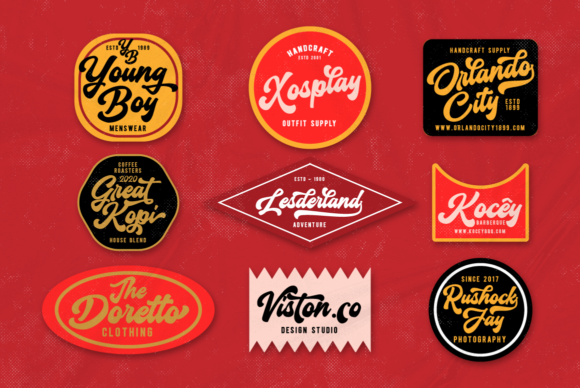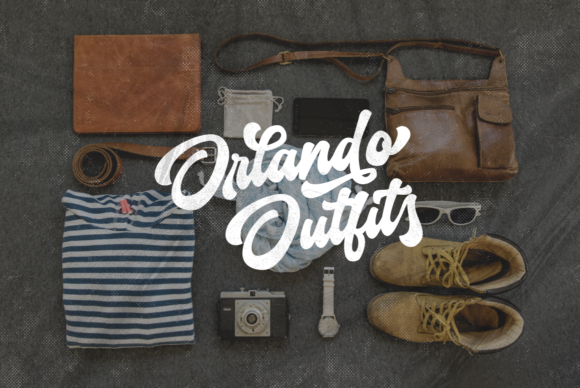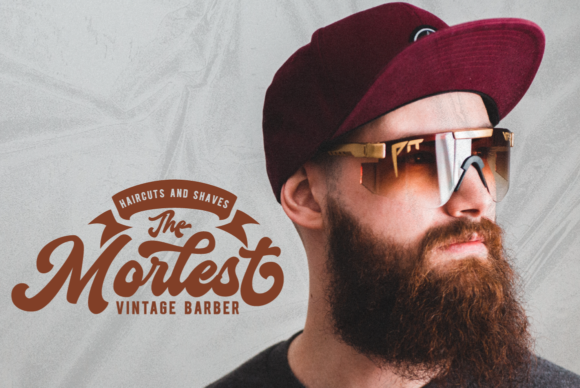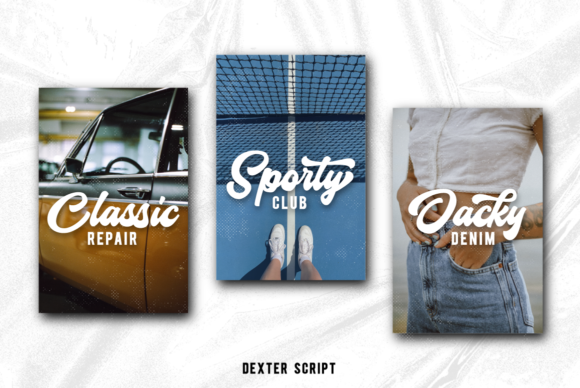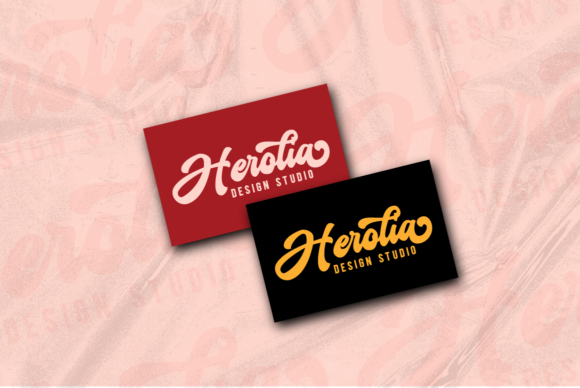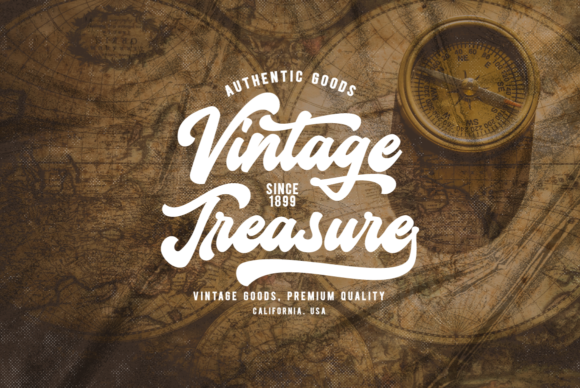
Discover the Timeless Charm of the Dexter Font
There’s something magical about sitting down with a cup of coffee, a blank sheet of paper, and a blank mind. As a designer, you’ve probably experienced that moment where the perfect idea strikes, and you can’t wait to bring it to life. For many of us, that moment often involves the perfect font – one that sets the tone, evokes emotions, and makes our creations truly special. Enter the Dexter Font, a flowing handwritten font that exudes a vintage charm and invites you to create something truly unique.
With the Dexter Font, you can craft stunning wedding invitations, beautiful stationery art, eye-catching social media posts, and much more. Its versatility and charm make it an invaluable asset for designers looking to add a personal touch to their projects. Whether you’re a seasoned pro or a creative newbie, the Dexter Font is sure to inspire your next masterpiece.
- Unique Characteristics: Features a clean and modern design with a subtle flair, making it suitable for a wide range of applications, from body text to display headlines.
Dexter Font Review
I recently had the chance to work with the Dexter Font, and I must say it’s an interesting combination of styles. ✨ One of the things that stands out is its unique blend of modern and vintage elements. The font’s bold and chunky texture, paired with its rounded edges, creates a visually appealing contrast that can add a lot of character to designs.
Here are some of the features that I think work well in the Dexter Font:
- ✨ Unique blend of modern and vintage elements
- ✨ Bold and chunky texture
- ✨ Rounded edges
- ⚠️ Limited flexibility in terms of font sizes and weights
- ⚠️ Not ideal for small text due to its bold and chunky texture
- ⚠️ May not be suitable for designs that require a clean and minimalist aesthetic
Overall, I think the Dexter Font is a great choice for designers who want to add some personality and character to their designs. It’s perfect for titles, headings, and other display text, but may not be the best choice for body text or designs that require a more subtle look.
For optimal results, use the Dexter Font for titles, headings, and other prominent text elements. Experiment with different font sizes and styles to create a visually appealing design.
Dexter Font is suitable for various design projects, including:
- Business cards and brochures
- Logo designs and branding materials
- Infographics and data visualizations
- Editorial